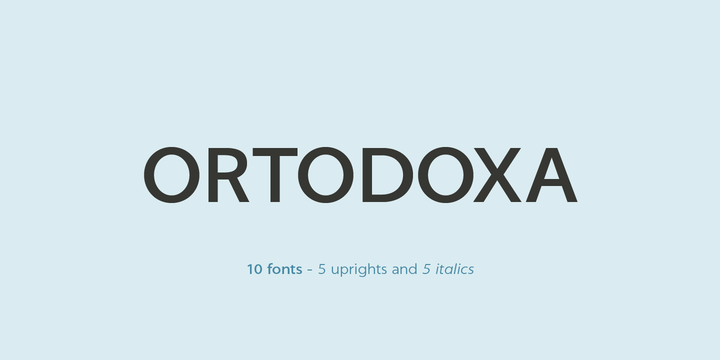
Ortodoxa
by Monograma
‘Orthodox’ means following or conforming to the traditional or generally accepted rules or beliefs of a practice. That is the same principle of Ortodoxa, a typeface that holds to the tradition of sans-serif without the aim of innovation but rather seeks for a fresh look at conventional letterforms. Inspired by modern geometric typography, this versatile family stands for cleanness, neutrality and, most important, legibility. It is well-suited for paper or computer screens.